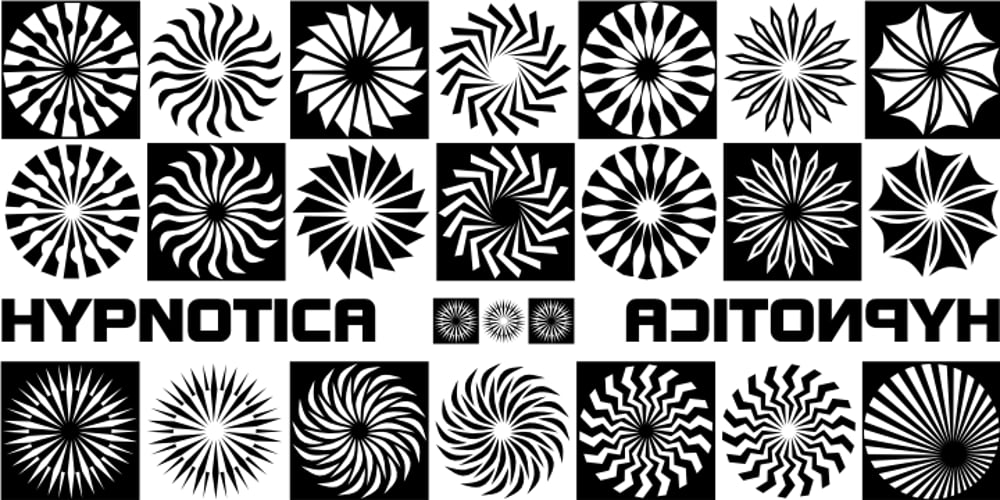
Hypnotica
Hypnotica font
Hypnotica Font Family was designed by Denise Koehler and published by Deniart Systems. Hypnotica contains 1 styles and family package options. Hypnotize your audience! For a truly unusual eye-catching experience, this modern-day series, containing 52 geometrical and optical mofifs, can bewitch and fool the eyes with unexpected shifts in focus. Whether your documents are for print or screen, these symbols are sure to add a little fun to all your presentations.